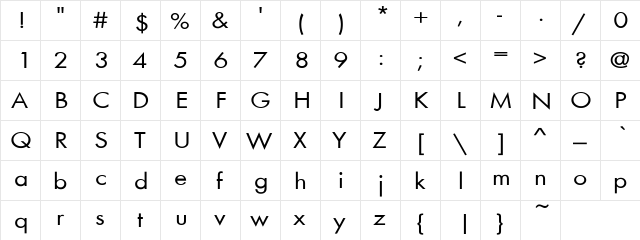
Sulley Extended Regular Font Preview
Sulley Extended Regular
Design Context for Sulley Extended Typeface
Sulley Extended offers clean, dependable letterforms without strong stylistic allegiance, making it a practical choice for designers who need flexibility.